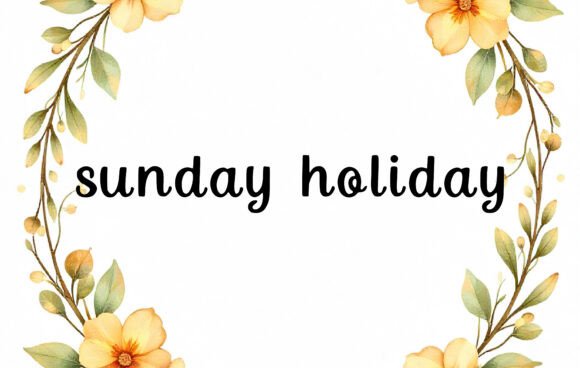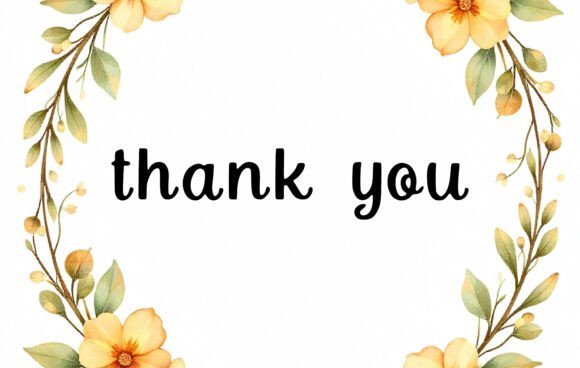
Introduction to Seraphyne Font
Have you ever been brainstorming a creative project, pouring over design ideas and searching for the perfect font to bring your vision to life? That’s exactly what happened to me when I stumbled upon the enchanting Seraphyne Font. Its whimsical handwritten style with delightful curves instantly captured my heart, and I knew I had to share it with fellow designers and creatives.
As a valuable design resource, Seraphyne Font is a game-changer for any high-quality creative project that requires a touch of elegance and playfulness. Whether you’re working on social media graphics, kid-related designs, or product packaging, this font is sure to make your designs stand out. Plus, with its transparent background and effortless readability, it’s perfect for quote cards, stickers, or any other design that needs a bit of extra flair.
Key Features of Seraphyne Font
- High-quality design for creative projects: The Seraphyne Font is perfect for designers and artists working on high-end projects that require a touch of elegance and sophistication.
- Transparent background: This font features a transparent background, making it ideal for use on any background or design element, adding versatility to your creative project.
- High-resolution design: The font is designed at 300 DPI, making it suitable for use in high-resolution printing and digital applications.
- Unique, hand-drawn style: The Seraphyne Font features a unique, hand-drawn style that adds a touch of personality and whimsy to any design project.
- Perfect for various design applications: This font is ideal for use in logos, branding, packaging, and other design applications where a high-quality, creative font is required.
Honest Review: Seraphyne Font
As a designer, I’m always on the lookout for high-quality design resources to elevate my creative projects. The Seraphyne Font is a beautiful addition to any design toolkit.
One of the standout features of this font is its elegant, cursive script. The flowing lines and subtle curves make it perfect for creating a sense of sophistication and elegance in your designs.
- ✨ Beautiful, high-quality design that’s perfect for creative projects
- ✨ Offers a transparent background, making it easy to use in any design
- ⚠️ The font may not be as versatile as some other options, making it better suited for specific design projects
- ⚠️ Some users may find the font’s elegance to be over-the-top, depending on the project’s tone
Overall, I’m thoroughly impressed with the Seraphyne Font. Its high-quality design and free availability make it a valuable addition to any designer’s toolkit. While it may not be the best fit for every project, it’s definitely worth exploring for designers looking to add a touch of elegance to their work.
For the best results, use Seraphyne Font on a high-quality design resource. Experiment with different font sizes, colors, and styles to create a unique look. You can also use the font in combination with other design elements to create a visually appealing design.
Seraphyne Font is ideal for use in a variety of creative projects, including logos, business cards, and social media graphics. Its high-quality design makes it a great resource for designers and non-designers alike. You can also download the font for free, making it a valuable design resource.